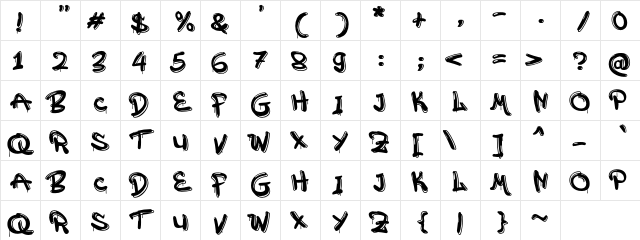
a Attack Graffiti Regular Free Font
a Attack Graffiti Regular
Designer: Wahyu Eka Prasetya
Complete a Attack Graffiti Regular glyph index. Displaying only characters natively supported by a Attack Graffiti Regular font.
Design Context for a Attack Graffiti
a Attack Graffiti is a composed and adaptable typeface that performs quietly and consistently across a wide range of design contexts.